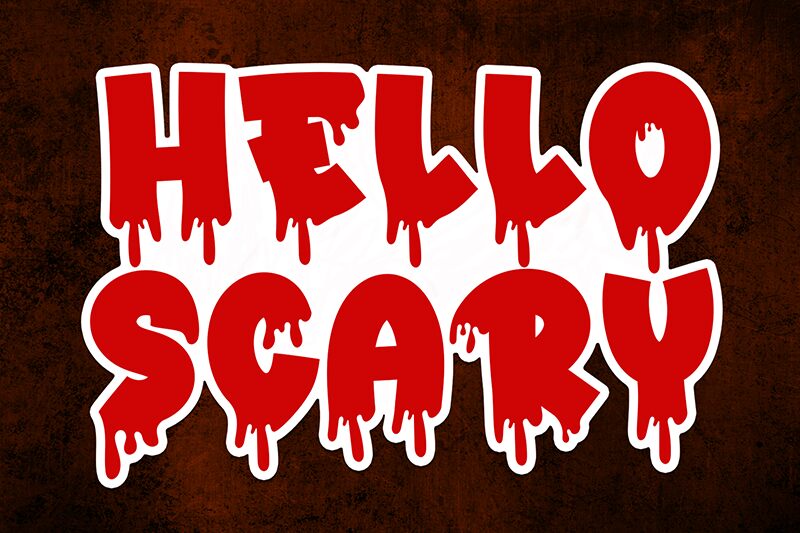
Hello Scary font by Scratchones is a free font with an edgy and theatrical style. Its characters have a grunge look and a dramatic dripping effect for an authentic Halloween-inspired vibe. Intense, impactful, and mysterious, this font can be the centerpiece of your project or work with other simple fonts to balance them out.
This font can create horror-themed book covers, printed and digital ads, film titles, video game designs, and many other Halloween-themed projects. Use it for logos, branding, product packaging, website design, social media campaigns, posters, and invitations.